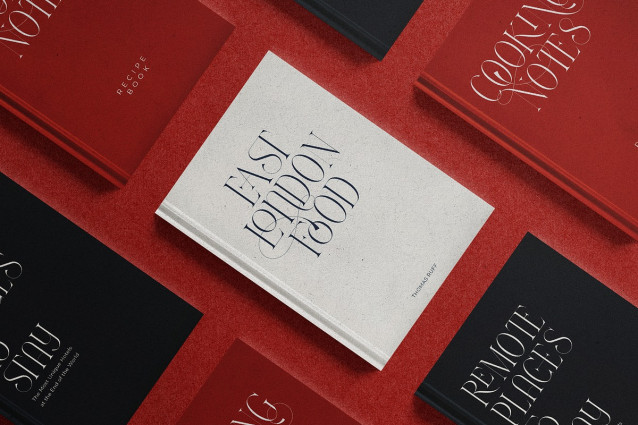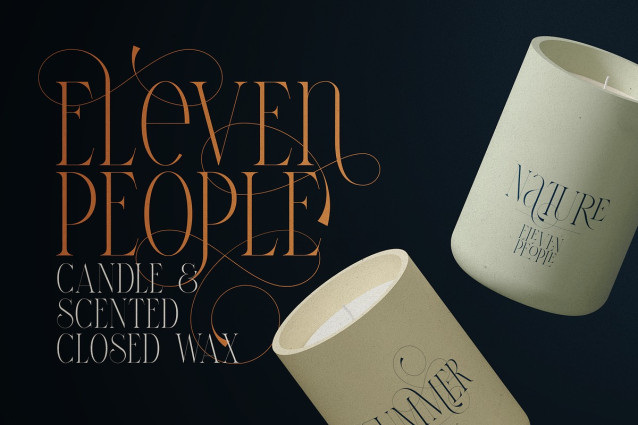
Thorn And Tale Font
Thorn And Tale Font is a high-contrast serif font crafted with elegance and drama in mind. Designed for luxury branding, editorial design, packaging, and high-impact typographic statements, this typeface blends classic sophistication with modern expressiveness.